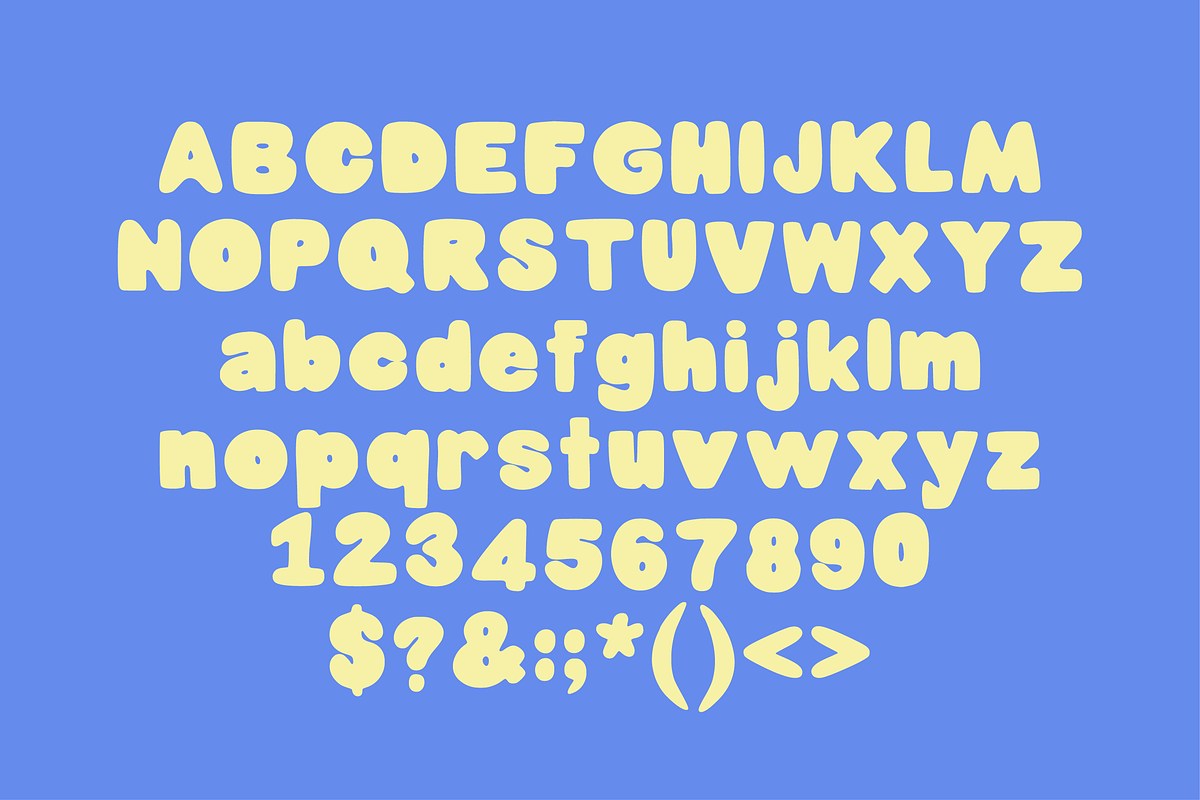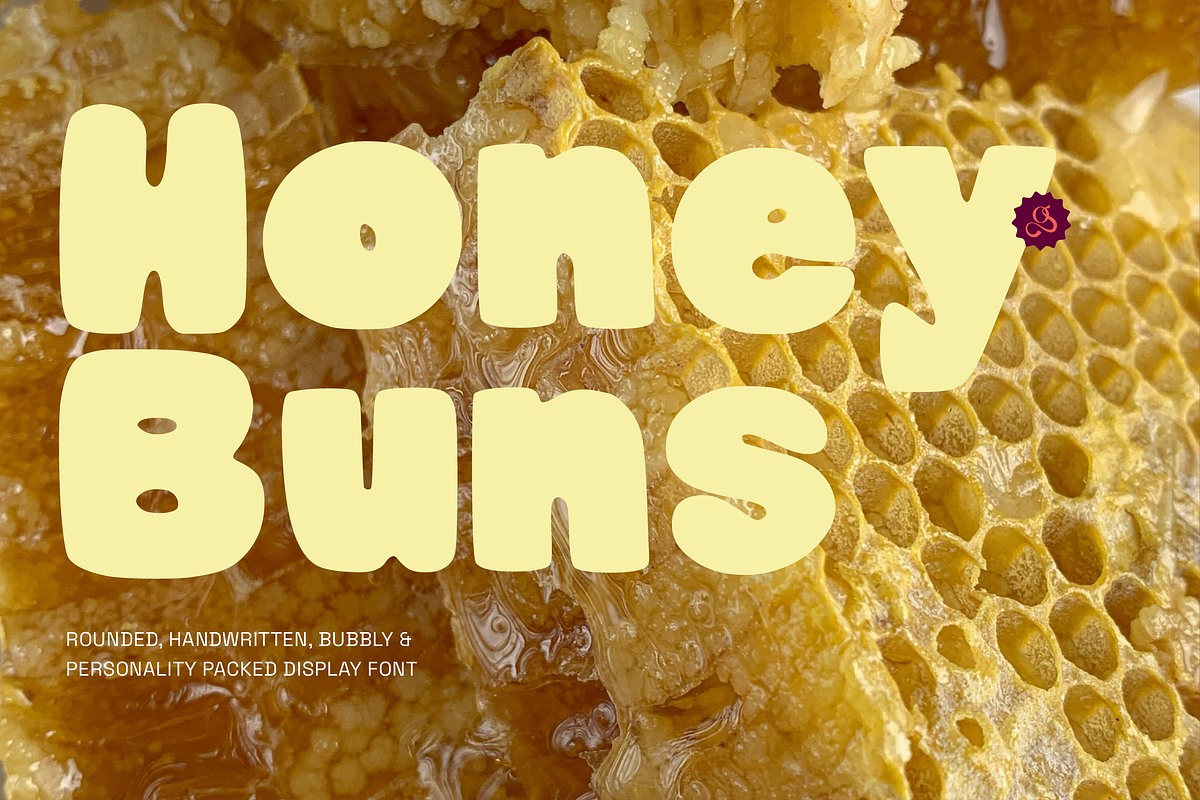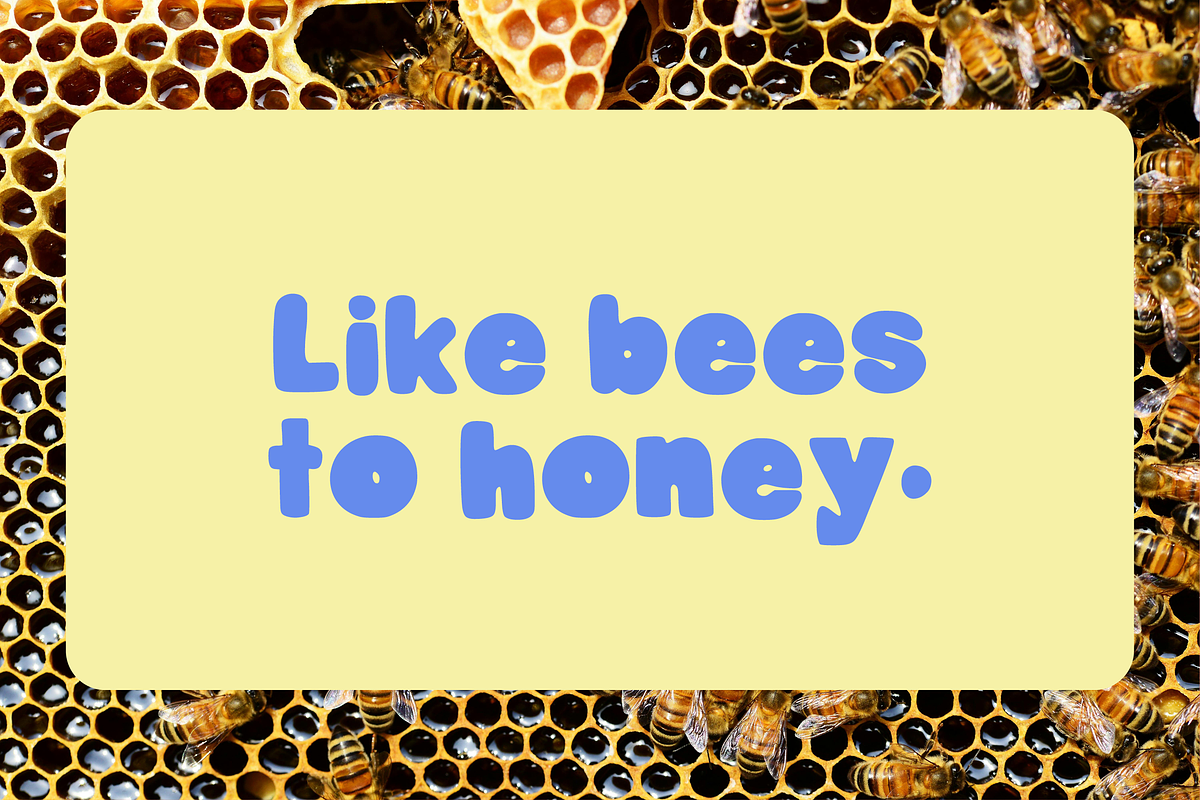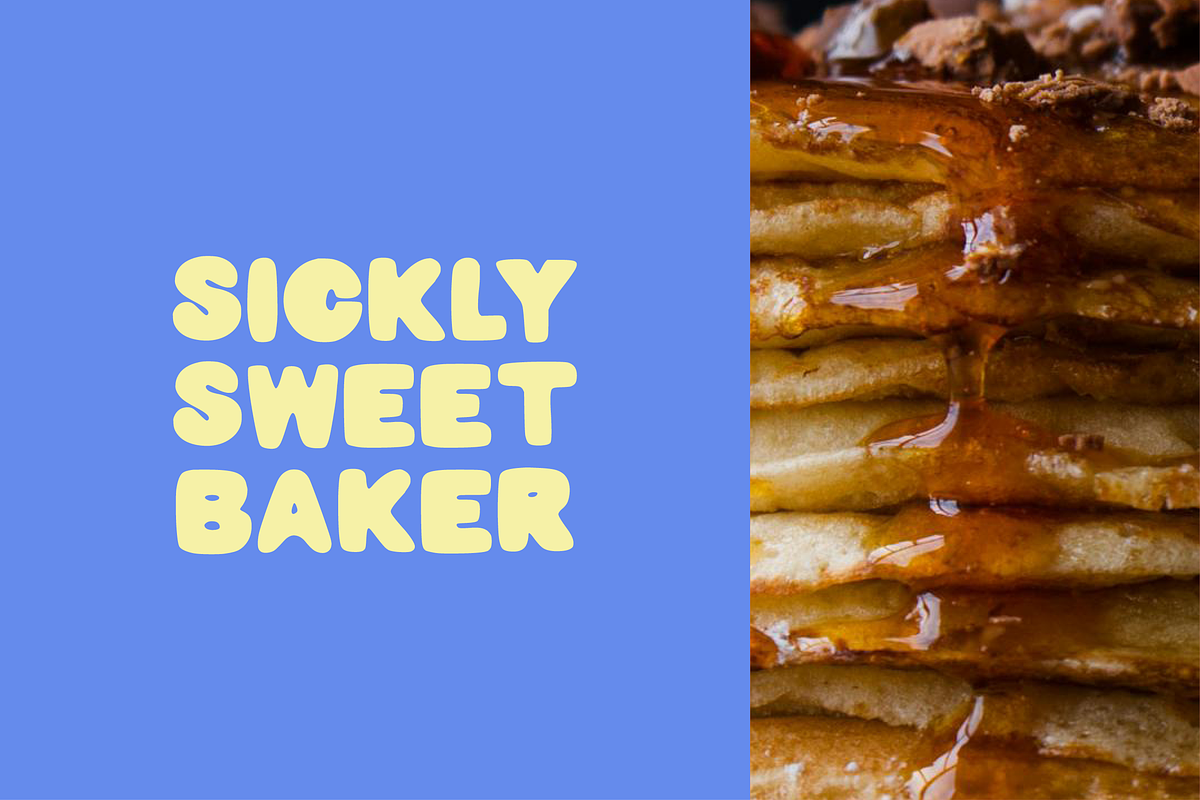
Honey Buns | Bold Display Font
MEET HONEY BUNS
Your new favourite bold, playful, perfect in every design display font.
Big, round and full of personality, Honey Buns brings instant playfulness to anything it touches. Think retro bubble letters, but with a hand-drawn, modern twist. It’s chunky without being clunky, fun without being child-like and bold enough to stand out for any crowd.
Perfect for logos, packaging, posters, merch, social graphics or anything that needs a loud and loveable vibe, this font was made to grab attention and keep it.
Why you'll love HONEY BUNS!
- Thick, rounded letters with a flat bubble feel.
- Hand-drawn quirks that keep it playful and approachable.
- Works beautifully in both all-caps and sentence case.
- Perfect for branding, bold headlines, stickers and so much more.